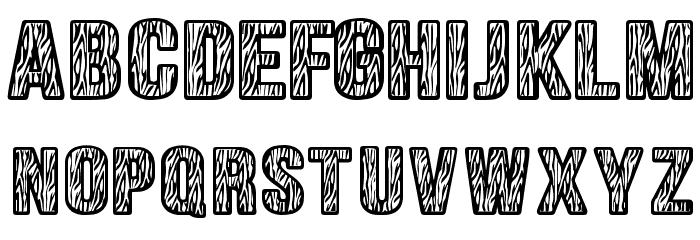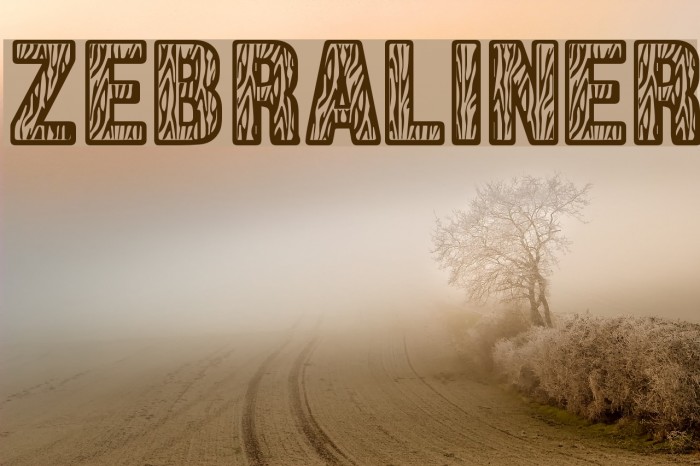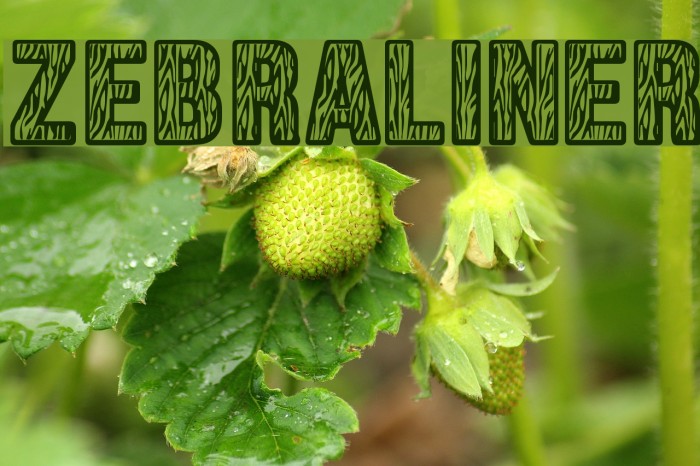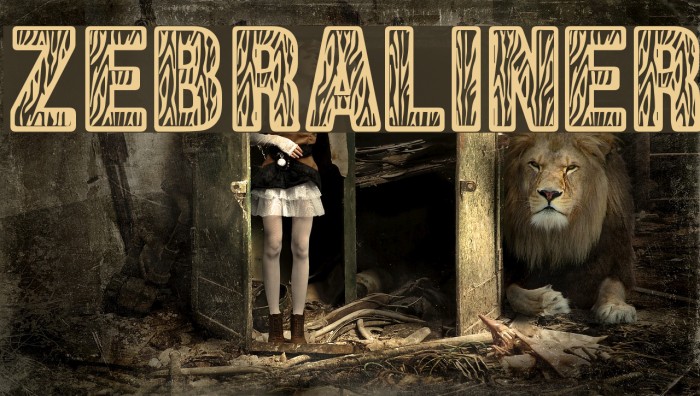
Zebraliner Font
This font features a bold, decorative style with a unique zebra stripe pattern filling each character. The uppercase letters are designed with a strong, blocky structure, making them highly visible and attention-grabbing. The pattern within the letters adds a playful and dynamic element, making it suitable for creative and artistic projects. The font maintains a consistent width and weight across all characters, ensuring uniformity in design. The overall appearance is both modern and whimsical, ideal for projects that require a standout visual impact.
A bold, decorative font with zebra stripe patterns for a playful and dynamic look.
- Proposed Projects: Ideal for posters, logos, children's book covers, and any design needing a bold, creative touch.
- Overall Style: Modern, Decorative